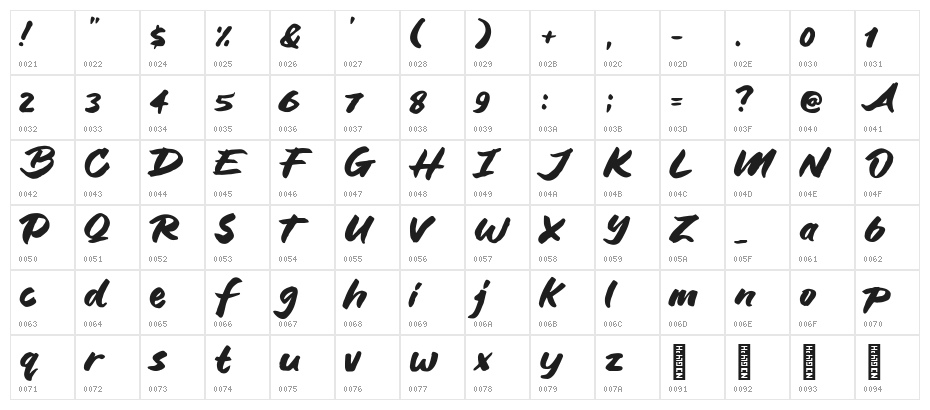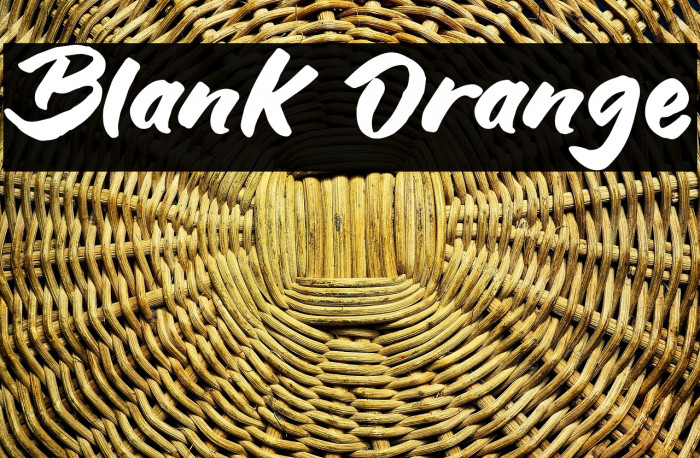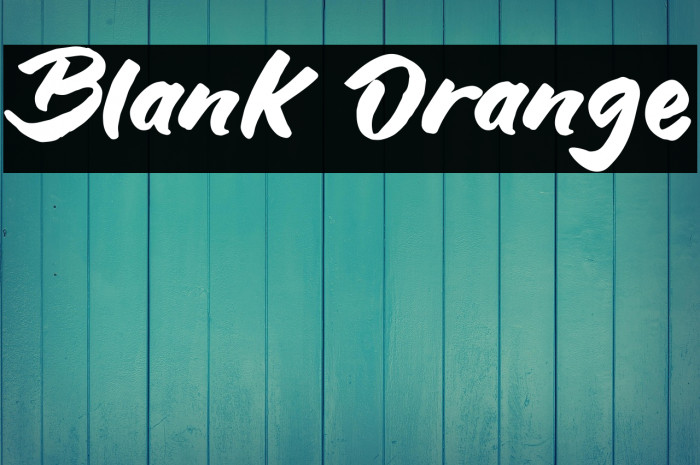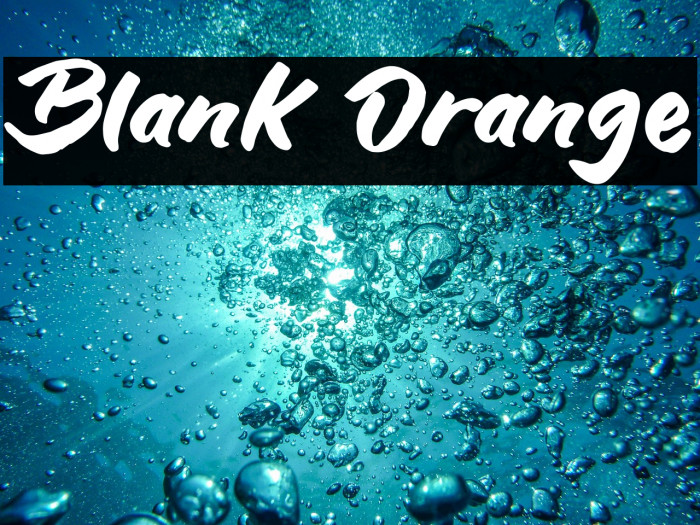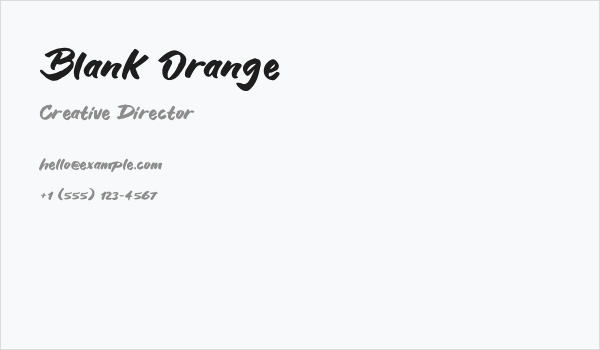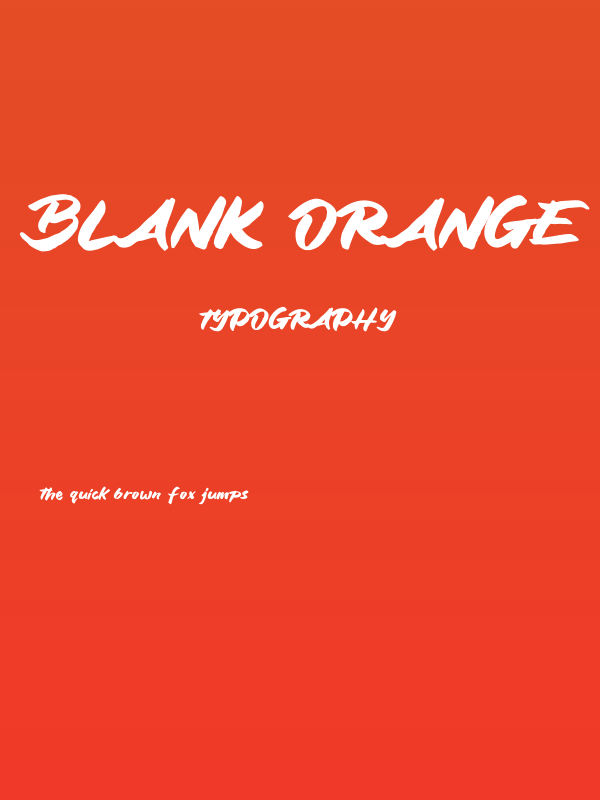
Blank Orange Font
Blank Orange Description
This font features a bold and expressive script style, characterized by its fluid and dynamic strokes. The letters are connected in a cursive manner, giving it a handwritten appearance that is both casual and artistic. The uppercase letters are slightly larger and more pronounced, while the lowercase letters maintain a consistent flow. The numbers and special characters follow the same stylistic approach, ensuring uniformity across all elements. This font's design is ideal for projects that require a personal touch or a creative flair.
| Proposed Projects | Ideal for greeting cards, invitations, branding, and creative posters. |